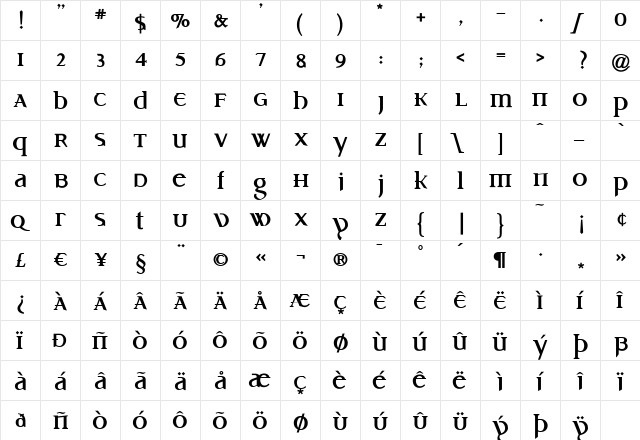
Idiosynoptium Regular
Design Context for Idiosynoptium Typeface
Idiosynoptium takes a measured approach to typography — its balanced proportions and neutral character make it a reliable workhorse for both digital and print work.